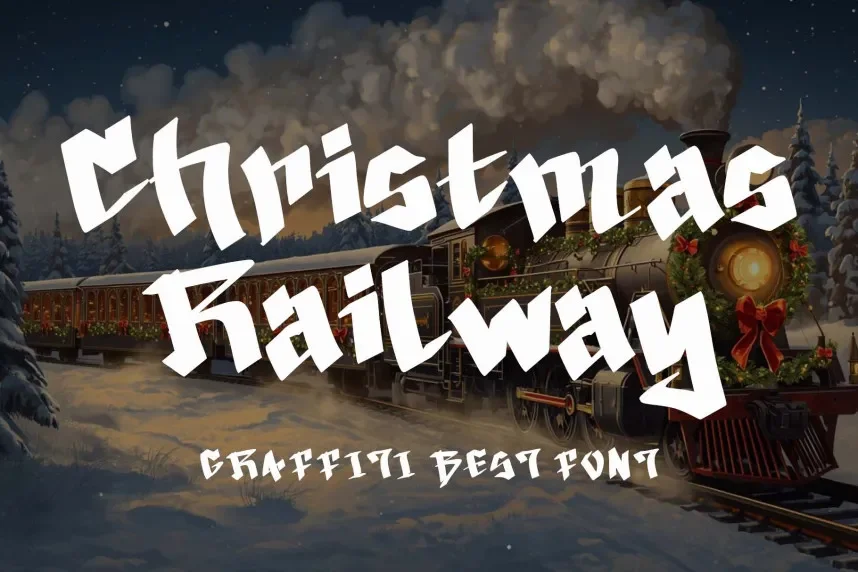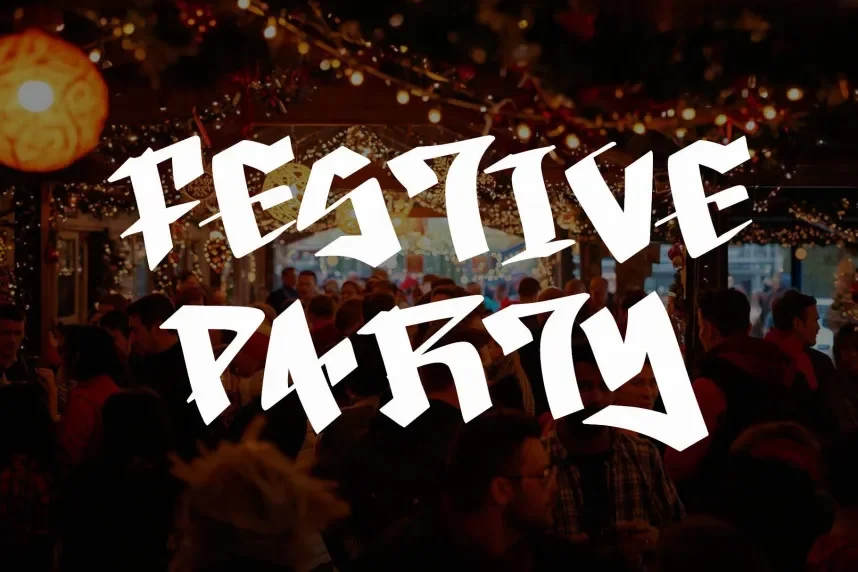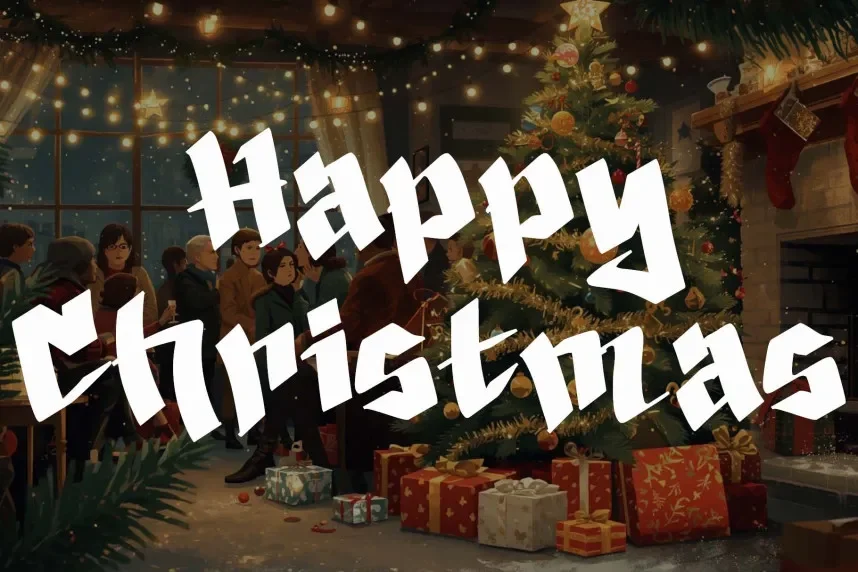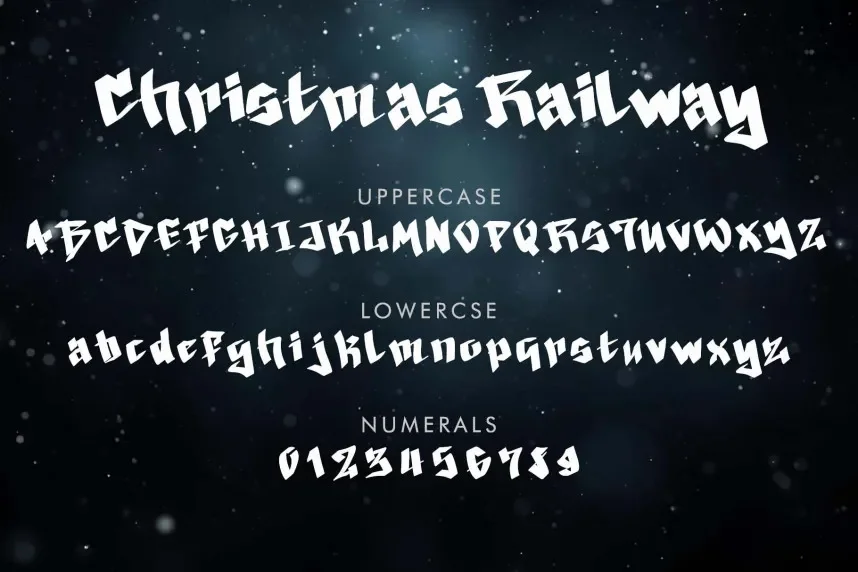
Christmas Railway Font is a display typeface designed for seasonal and decorative applications. It addresses the need for thematic clarity in posters, greeting cards, invitations, and festive branding without sacrificing legibility.
The font features stylized, condensed letterforms reminiscent of traditional railway signage, with consistent stroke widths and decorative elements. Its playful yet structured design provides visual impact for headlines, titles, and seasonal marketing materials.